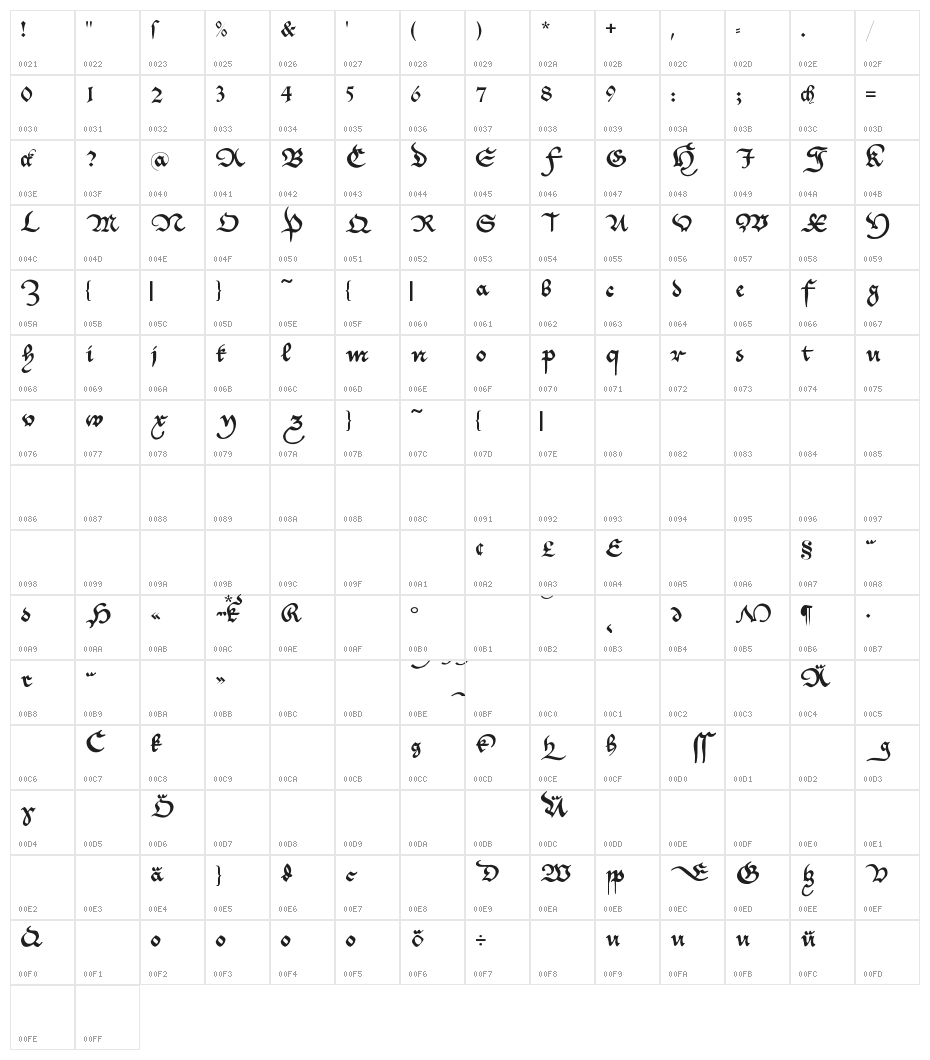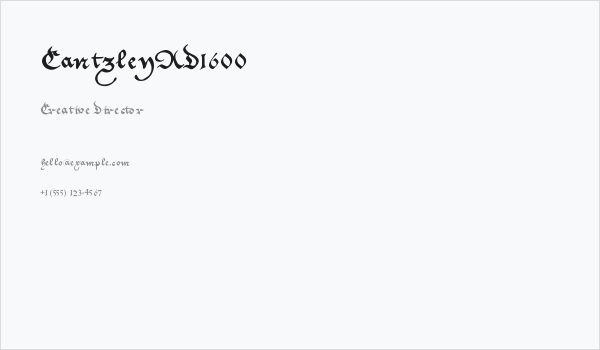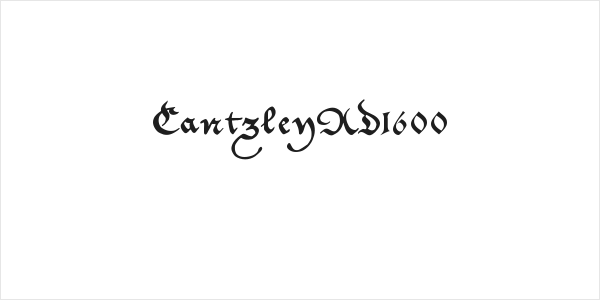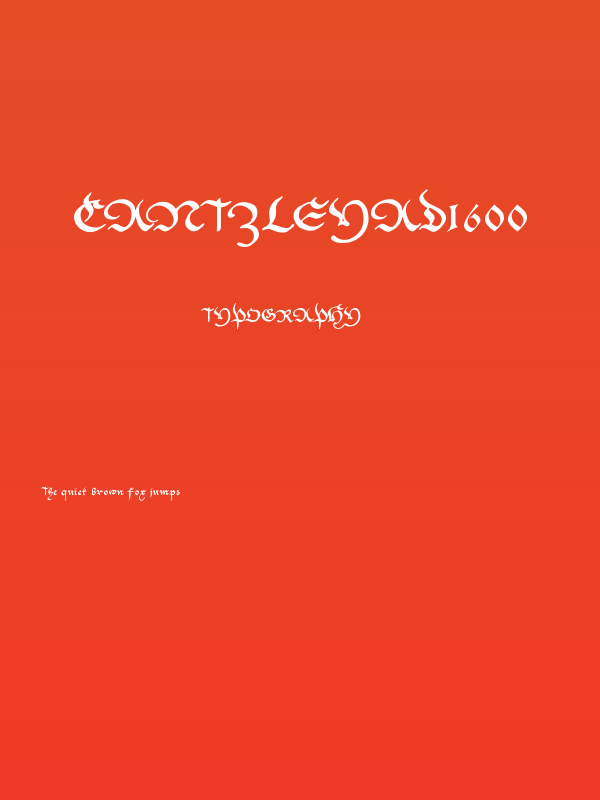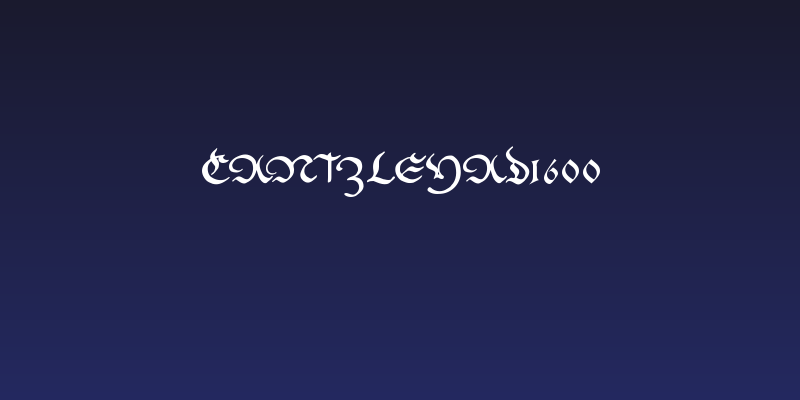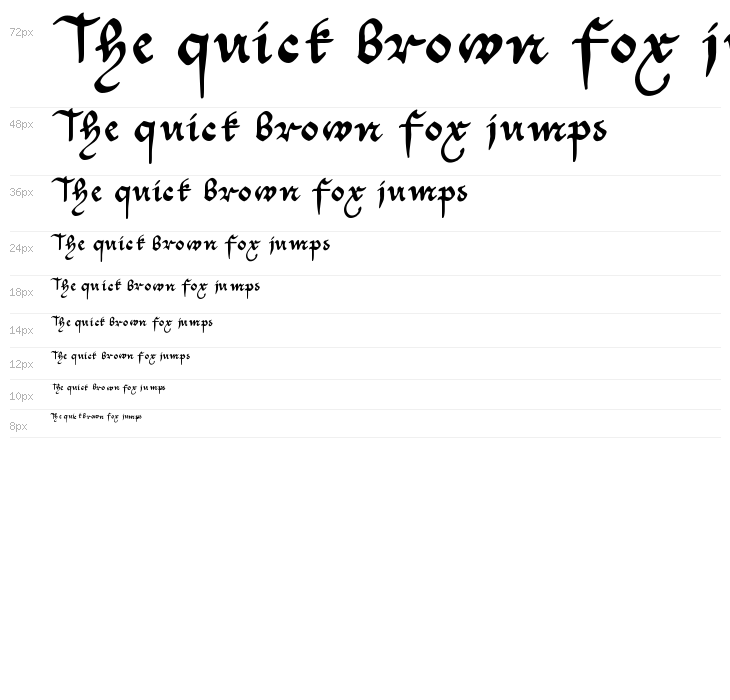
CantzleyAD1600 Font
CantzleyAD1600 Description
This font exhibits a classic Blackletter style, reminiscent of medieval script. It features ornate, angular strokes with a high degree of contrast between thick and thin lines, creating a dramatic and historical appearance. The uppercase letters are particularly elaborate, with intricate curves and sharp edges, while the lowercase letters maintain a consistent style with slightly less ornamentation. The numerals and special characters are designed to match the overall aesthetic, ensuring a cohesive look across all glyphs. This font is ideal for projects that require a touch of antiquity and elegance, such as historical documents, certificates, or decorative headings.
| Use Case | Headlines, Decorative text |
| Proposed Projects | Ideal for historical documents, certificates, decorative headings, and vintage-themed designs. |